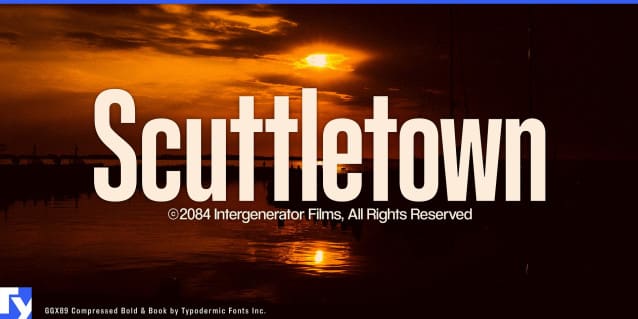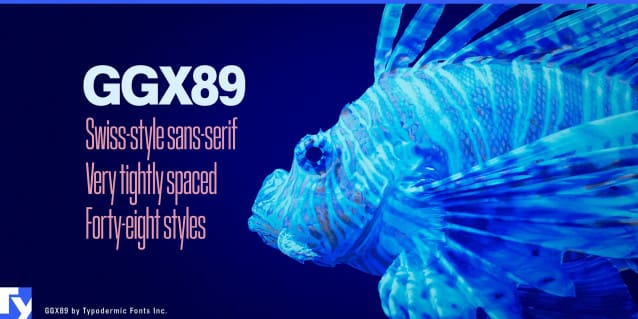
GGX89 Font Family
GGX89 Font Family, the ultimate display typeface with a minimalist look that exudes Swiss-style sophistication. With its tight spacing and sleek lines, GGX89 Font is perfect for creating eye-catching headlines, logotypes, and titles that demand attention.
Inspired by the iconic mid-20th-century sans-serif typefaces like Helvetica and Univers, GGX89 Font embodies the essence of Swiss graphic design, a style known for its simplicity, clarity, and precision. Its clean and straightforward design is sure to make any project look polished and professional.
But GGX89 Font isn’t just all looks. It’s also incredibly versatile, making it a top choice for a wide range of design applications. Whether you’re creating marketing materials, advertising campaigns, or editorial designs, GGX89 has got you covered.
And if you’re looking for a font that’s equally impressive for body text, look no further than GGX88. Together, these two typefaces offer a complete and cohesive design solution that will elevate your work to the next level.